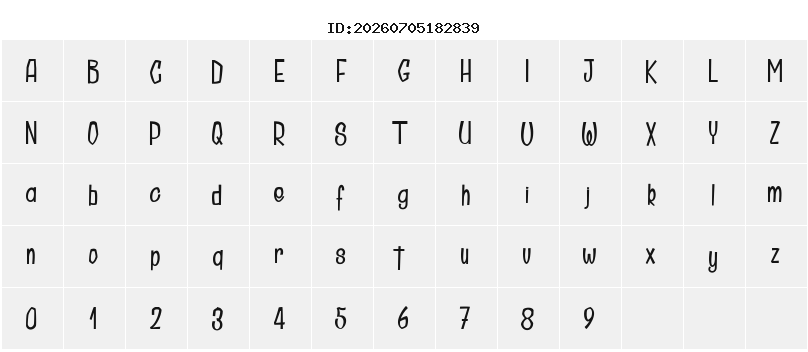
Doctor Cosmicucumber Preview
• Font Name: Doctor Cosmicucumber
• Designer: dcoxy Medina Gregory
About Doctor Cosmicucumber.ttf
Doctor Cosmicucumber.ttf is a modern, elegant sans-serif font designed for ultimate readability and visual harmony. Perfect for branding, headlines, web design, and print materials.